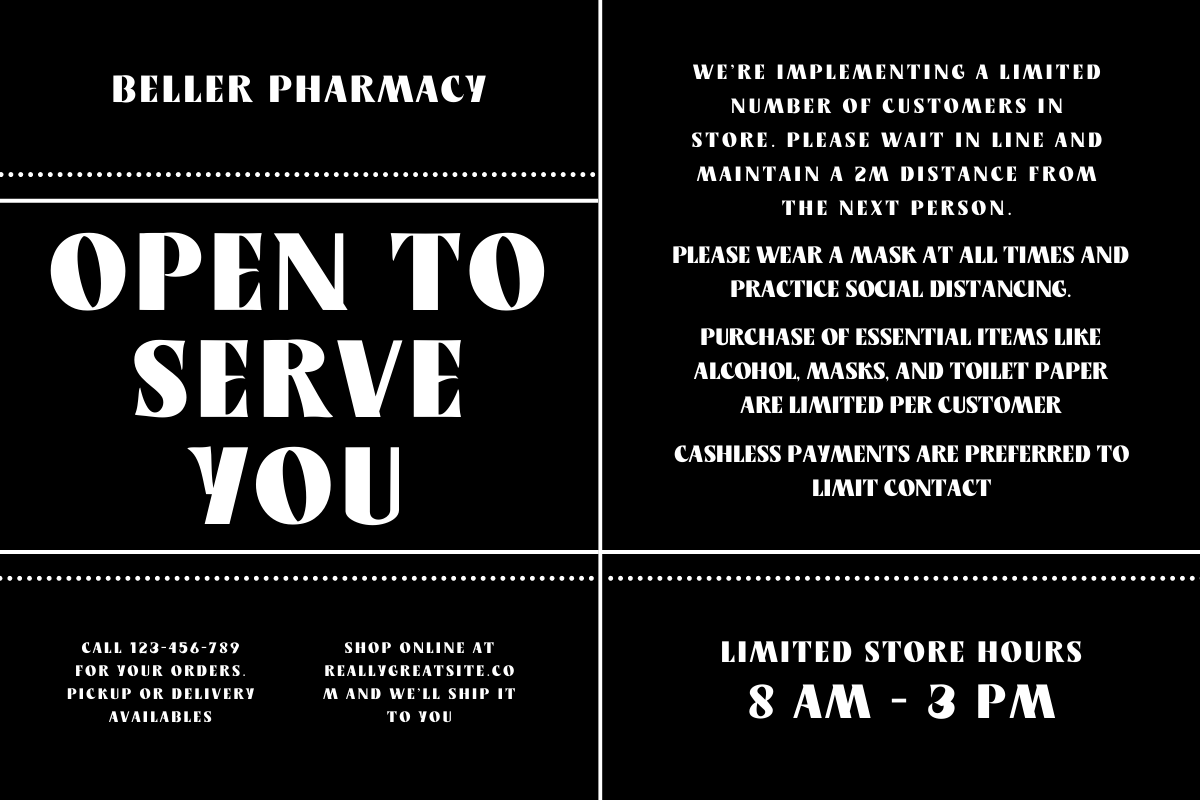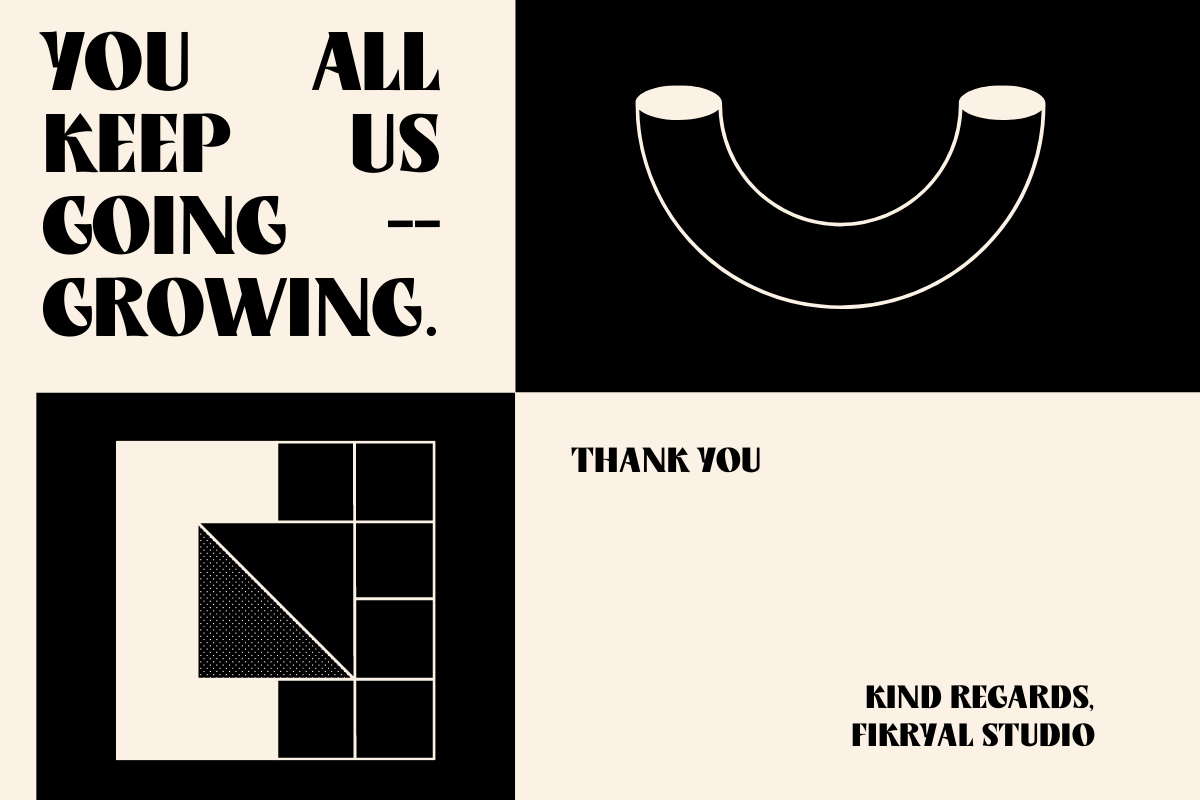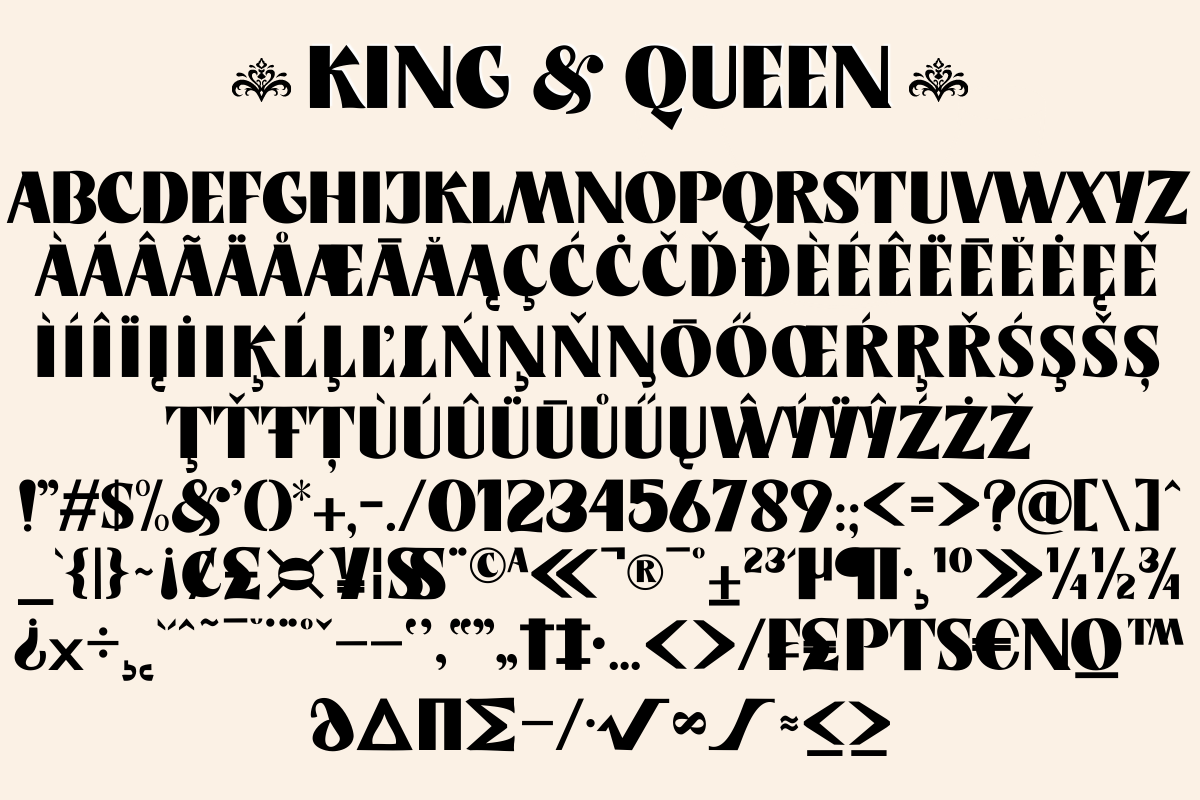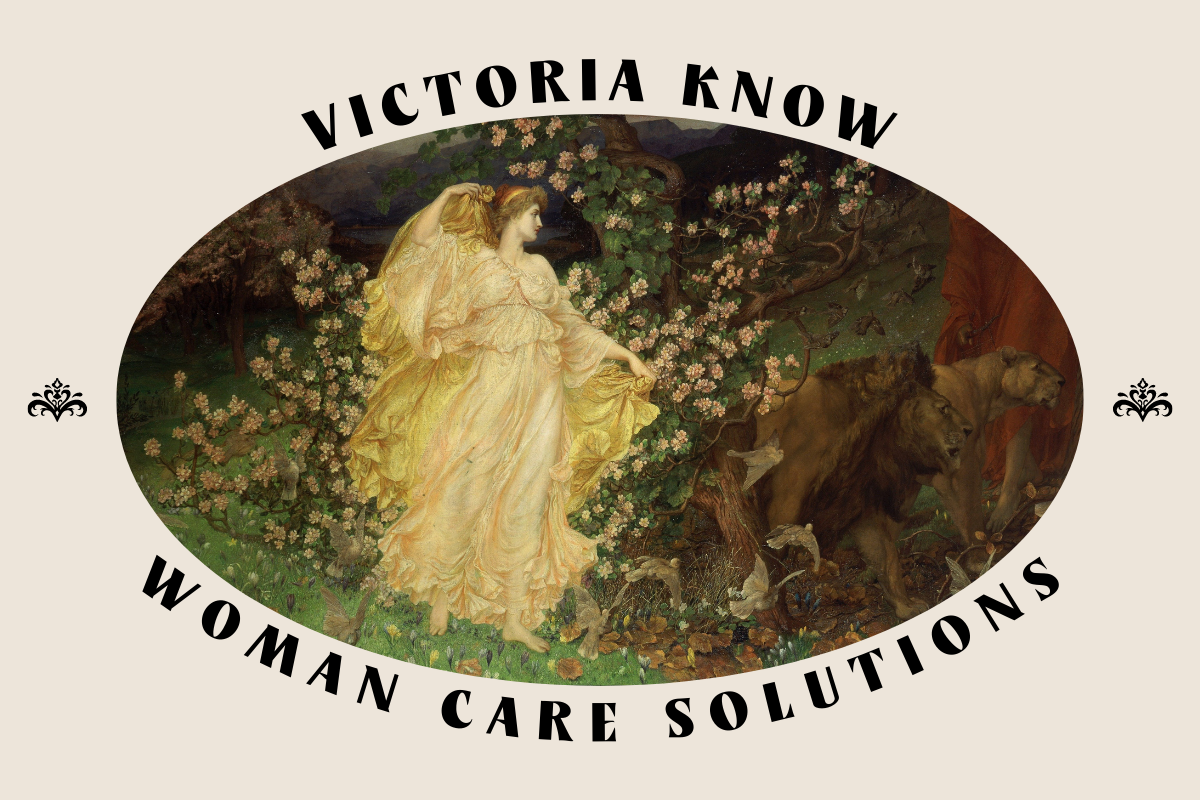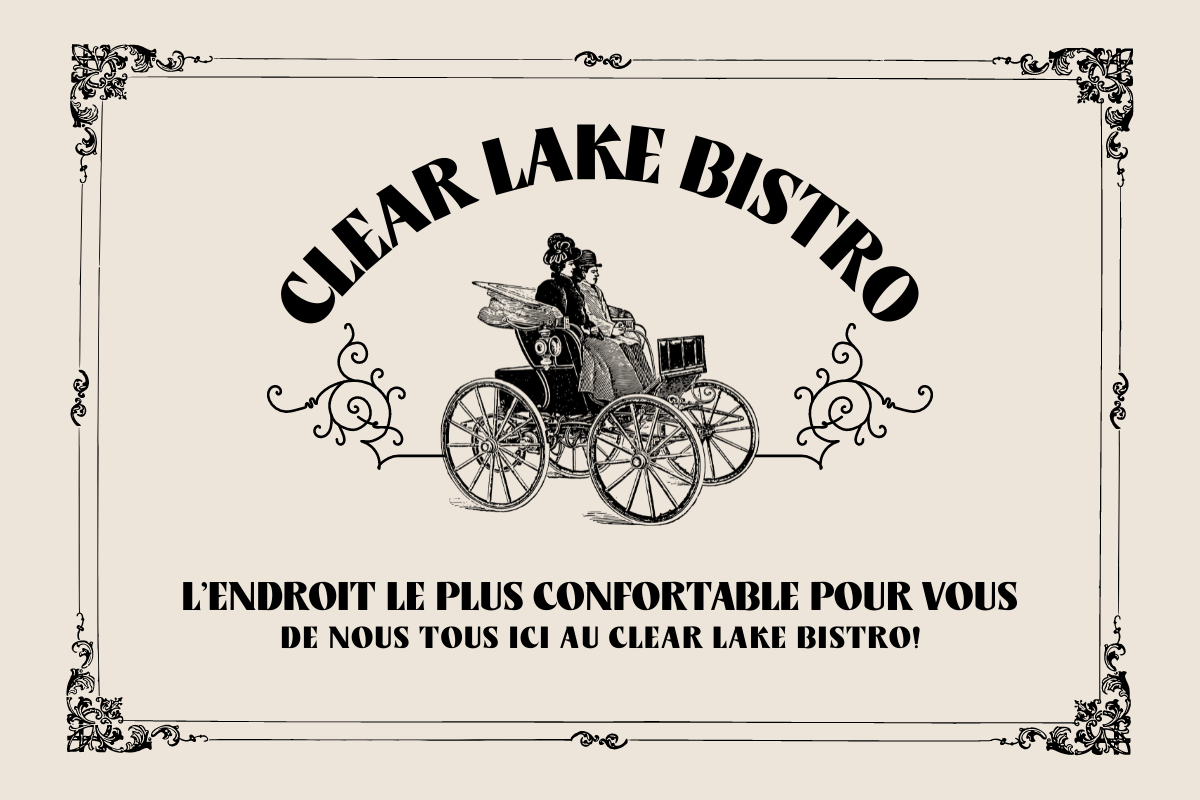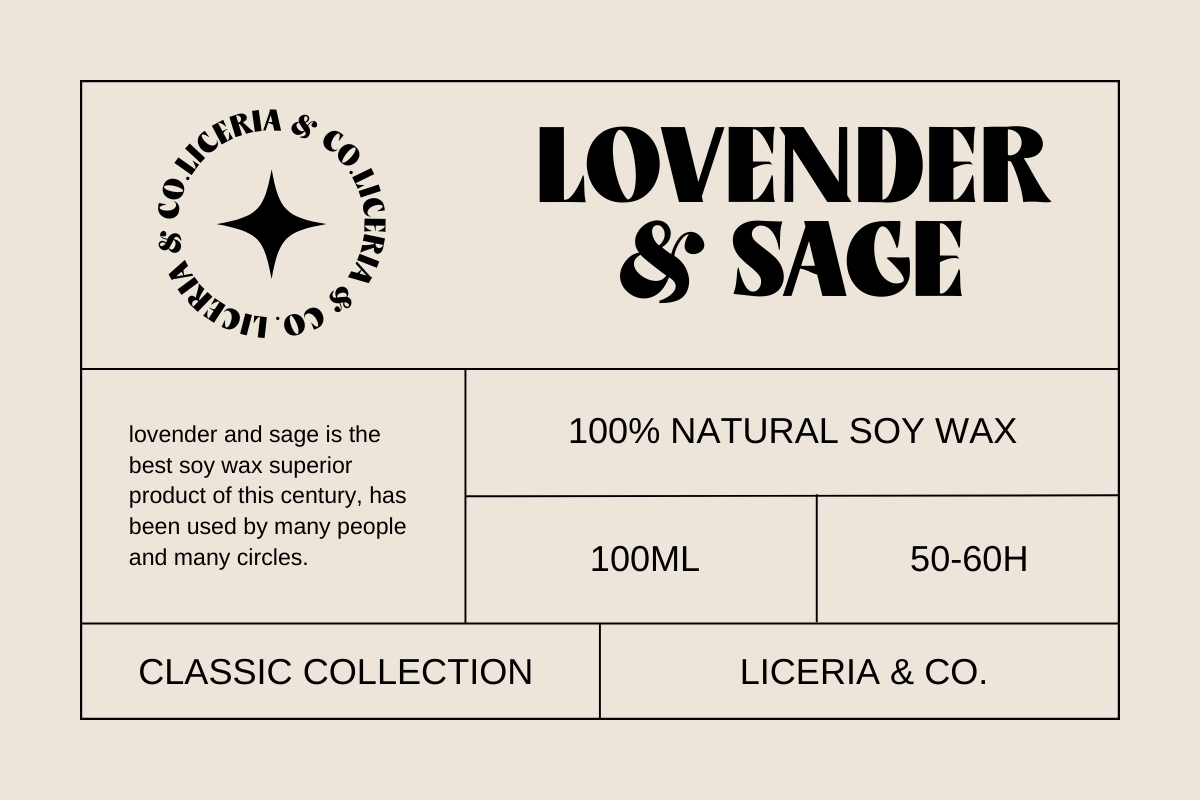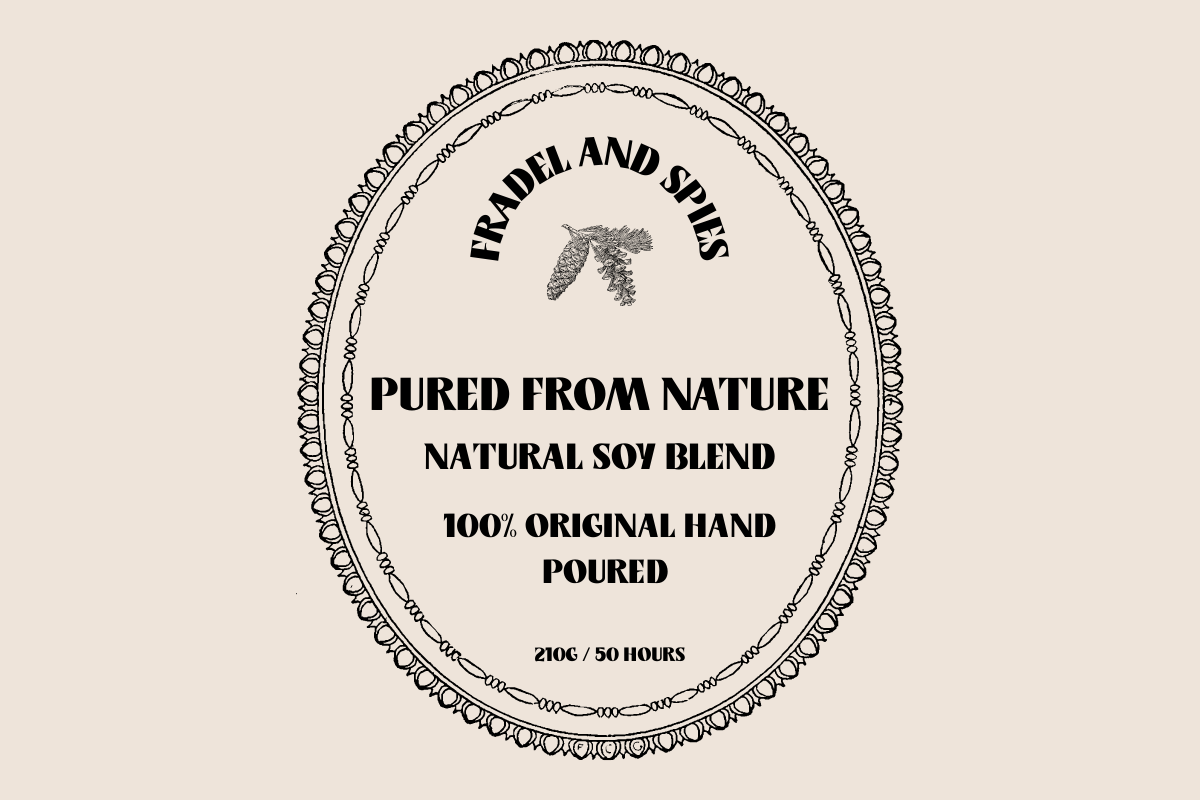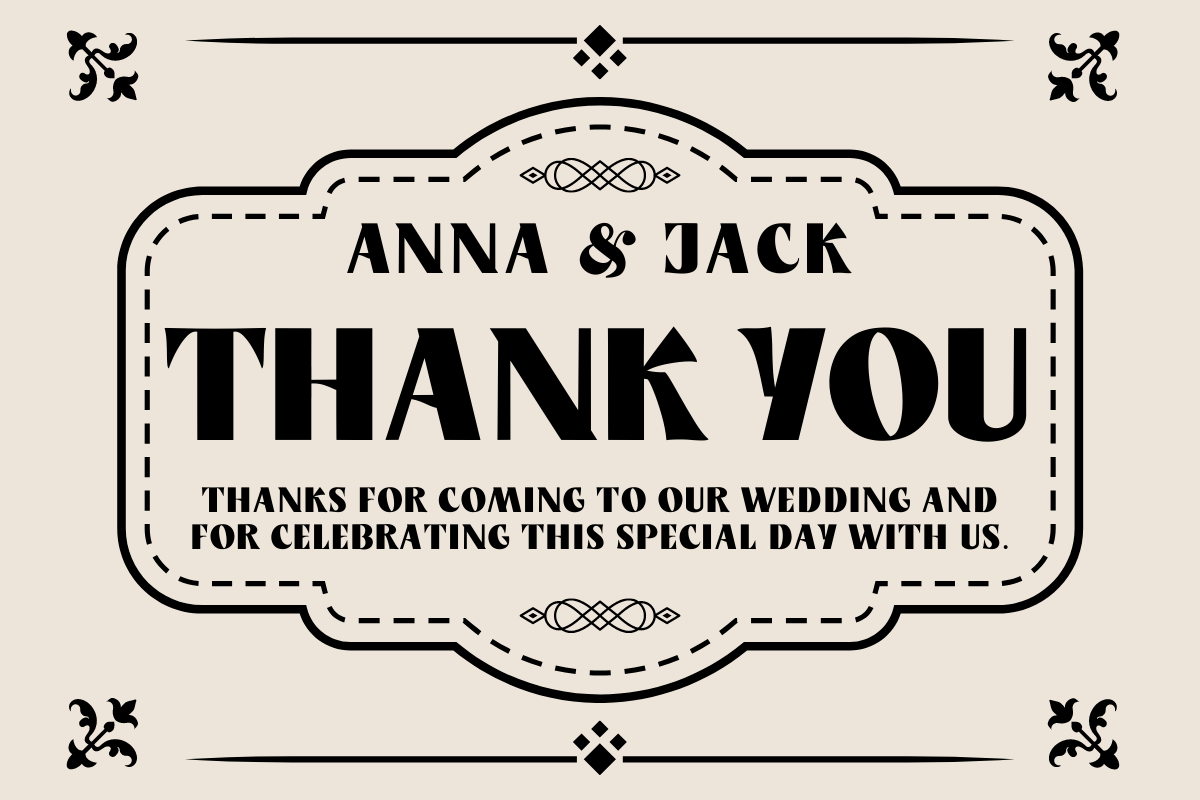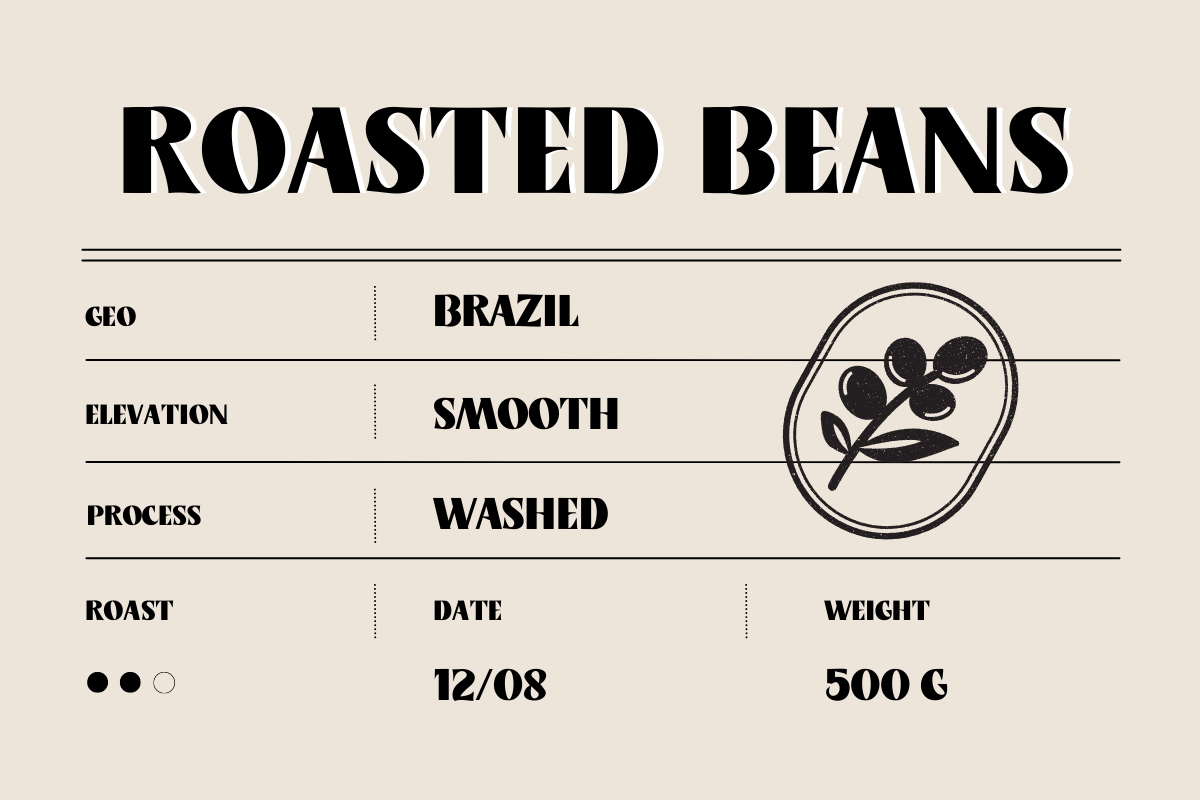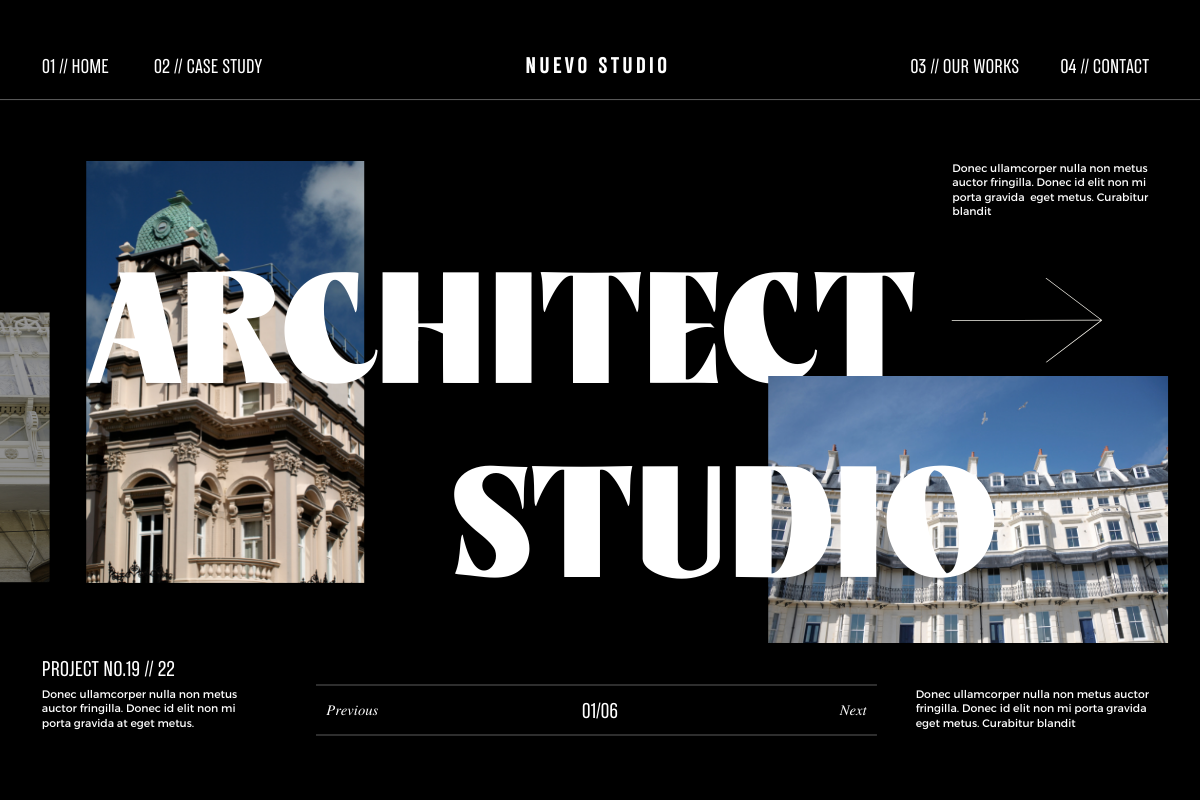
King & Queen – Display Serif
Introducing King & Queen – Display Serif font. This font is very suitable to be applied in various aspects of design, and your branding. Also, it’s perfect for logos, branding, title, social media posts, advertisements, product packaging, product designs, label, photography, watermark, special event, magazine, web designs, etc.
King & Queen (All Caps)
Multilingual Support, including Latin, Western Europe, Central/Eastern Europe, Baltic, Turkis, Romanian, etc.